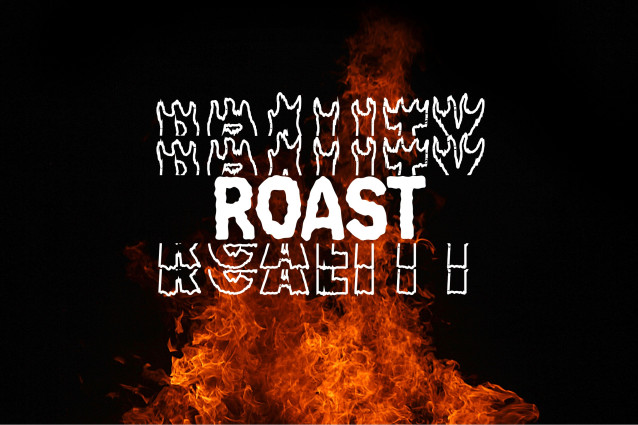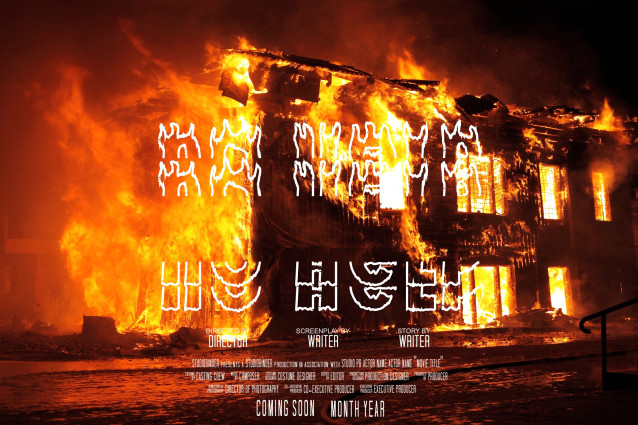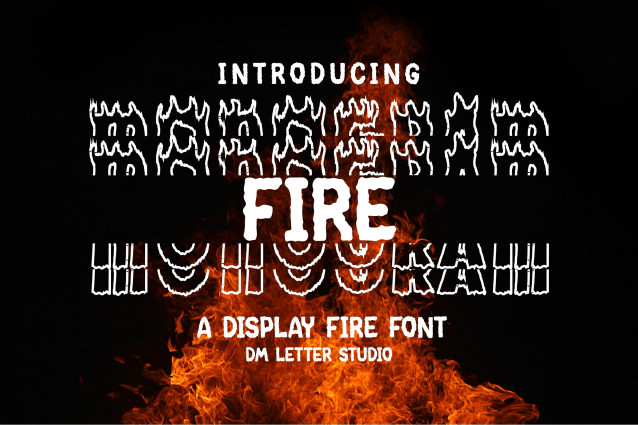
Fire Monogram Font
Fire Monogram is a fierce and dramatic display monogram font inspired by flames and gothic intensity. With its bold letterforms and fiery edges, this font brings the heat to any design. Whether you’re creating Halloween invites, gaming merch, heavy metal posters, or bold logo marks, Fire Monogram delivers a punch of energy and edge in every